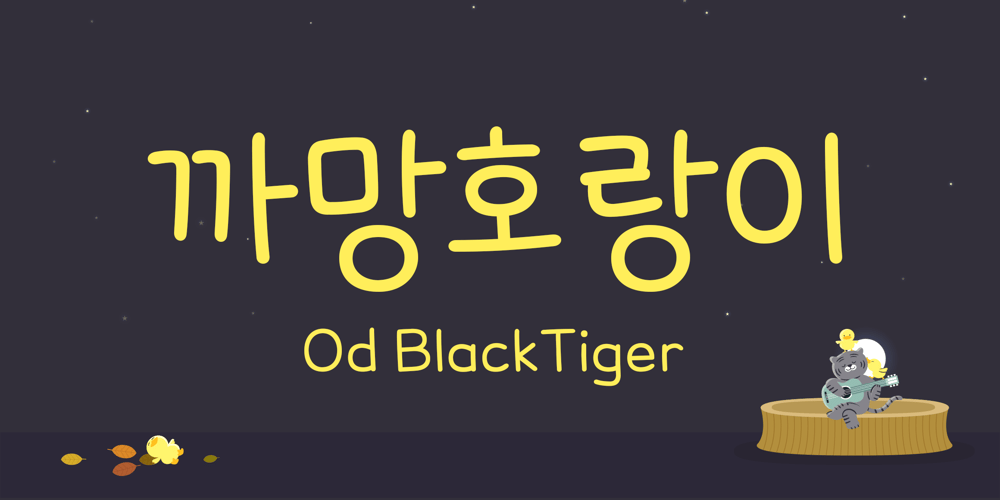
Od Black Tiger TTF Font Family was designed by Together Group and published by TogetherGroupFonts. Od Black Tiger TTF contains 1 styles and family package options. It is a soft and cute handwritten font.